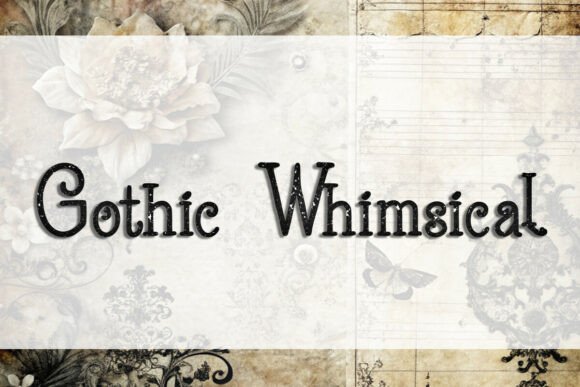
Gothic Whimsical Font for Makers
The late afternoon sun was streaming across my workbench, illuminating a stack of matte black cardstock and a fresh roll of gold foil labels. I had just finished pouring a new batch of spiced chai soy candles, and the scent of cinnamon and clove hung warmly in the air. The candles were perfect, but the labeling felt incomplete. I needed something that captured the cozy, slightly mysterious vibe of the scent without feeling too heavy or severe. That is when I opened Gothic Whimsical, a delightful blend of classic Gothic touches and lighthearted playfulness, and suddenly, the design clicked into place.
As a handmade seller, you know that typography is not just about readability; it is about mood. It is the voice of your brand before a customer even touches your product. This versatile typography from Script Amp offers a unique bridge between the ornate history of blackletter styles and the approachable charm needed for modern creative endeavors. It feels like finding the perfect accessory for an outfit—it ties everything together with an enchanting touch.
Bringing Character to Product Labels
When I applied Gothic Whimsical to my candle labels, the transformation was immediate. The font’s distinct serifs and decorative flourishes gave the packaging a boutique feel that elevated the perceived value of the item. It did not look mass-produced; it looked curated. For makers who specialize in small-batch goods, such as artisanal soaps, small-batch jams, or hand-poured candles, this typeface serves as a powerful tool for brand identity.
The key to using a display font like this effectively is balance. Because Gothic Whimsical has strong visual personality, it works best for short phrases, product names, or titles rather than long paragraphs of ingredient lists. I used it for the scent name "Midnight Spice" and paired it with a clean, simple sans serif font for the net weight and safety warnings. This contrast ensured that the label remained legible while allowing the decorative font to shine as the focal point. When designing for physical products, always test your print at actual size. What looks clear on a large monitor can become muddy on a two-inch round sticker if the details are too fine.
Elevating Stationery and Invitations
Beyond product packaging, this font finds a natural home in the world of paper goods. I recently designed a set of birthday invitations for a client who wanted a "dark academia" theme. Gothic Whimsical was ideal for the header text, adding a sense of occasion and timeless elegance. It works beautifully for wedding invitations, particularly for couples seeking a non-traditional yet sophisticated aesthetic. Whether used for save-the-dates, menu cards, or place settings, the font adds a layer of custom design that standard system fonts simply cannot match.
For printable creators, this typeface is a valuable asset in digital download shops. You can create templates for party decor, welcome signs, or printable wall art that customers can personalize. The whimsical nature of the font makes it approachable for events that are fun rather than strictly formal. Imagine a Halloween party banner or a gothic-themed baby shower invitation; the font carries the theme without becoming scary or aggressive. It strikes that delicate balance of spooky and sweet, which is increasingly popular in seasonal crafting.
Versatility Across Merchandise
The adaptability of Gothic Whimsical extends well beyond paper. I have experimented with using it for tote bag designs, where bold, centered text stands out against canvas fabric. It also translates well to mug designs, especially when used for witty quotes or single-word statements like "Magic" or "Dream." When working with cut files for Cricut or Silhouette machines, it is important to check the complexity of the glyphs. Some intricate swashes may require careful weeding if you are cutting vinyl, so simplifying the design or choosing specific alternates can save time during production.
For those creating apparel, such as t-shirts or hoodies, this font works best for chest logos or back prints where the text is large enough to retain its detailed character. Pairing it with a handwritten font for a secondary line of text can create a dynamic, layered look that appeals to younger demographics. It is a creative font that encourages experimentation, allowing you to build a cohesive brand identity across various merchandise types.
Technical Considerations for Sellers
Additionally, explore the full range of design assets included with the font. Many modern typefaces come with alternates, ligatures, and swashes that can add uniqueness to your designs. Using these features prevents your work from looking generic. For example, swapping a standard "g" for a more decorative alternate can turn a simple word into a piece of art. Check for multilingual support if you plan to sell internationally, ensuring that special characters are available for various languages.
Remember, the best designs feel intentional. Take the time to experiment with spacing, pairing, and scale. Let the font guide your creative process, but do not be afraid to break rules if it serves the overall aesthetic. As you continue to create, let your typography reflect the care and craftsmanship that goes into every item you make. With the right tools, like this versatile typeface from Script Amp, your creative endeavors will not just be seen—they will be felt.